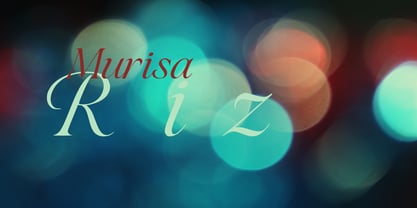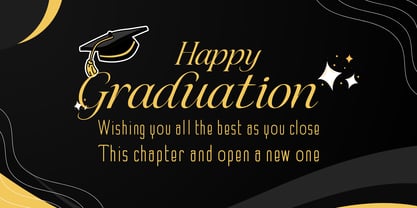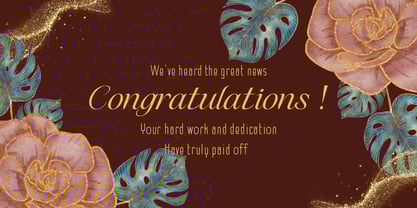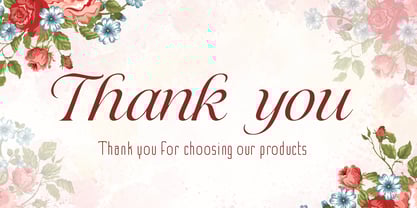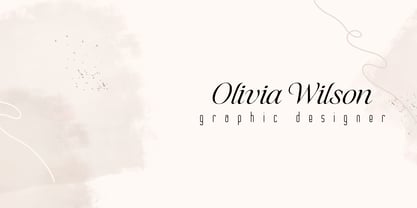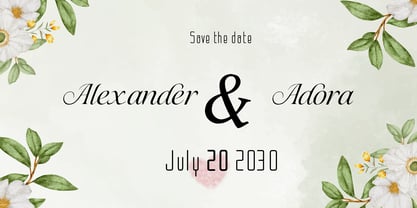
Murisa Riz
by Murisa Studio
The Murisa Riz Font Family was designed by Lili Sadili and published by Murisa Studio. Murisa Riz contains 1 styles.
Designers: Lili Sadili
Publisher: Murisa Studio
Foundry: Murisa Studio
Design Owner: Murisa Studio